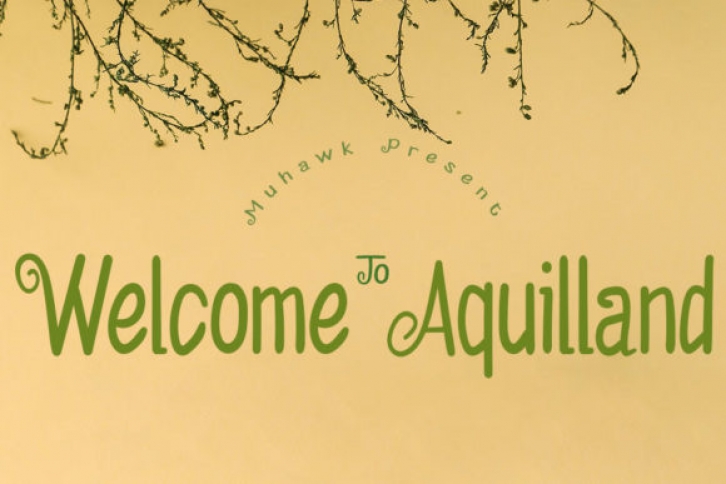
Welcome To Aquilland is a simple, whimsical and distinct script font. It can be used for a variety of design ideas, both formal and informal. Add it confidently and you will love the results.